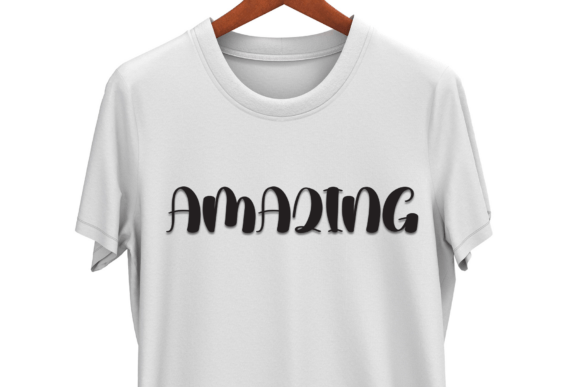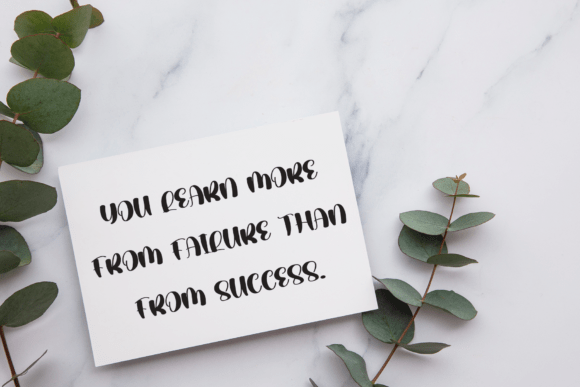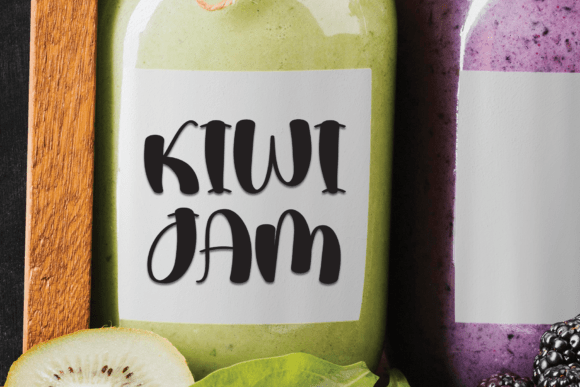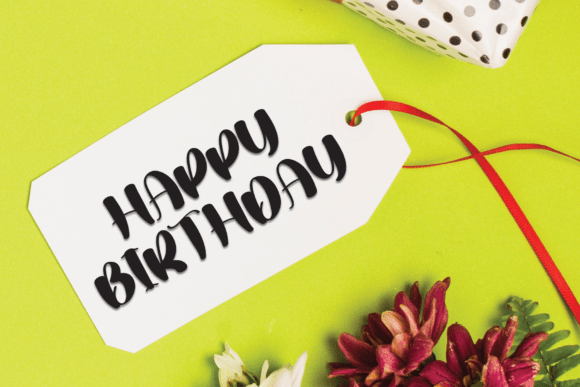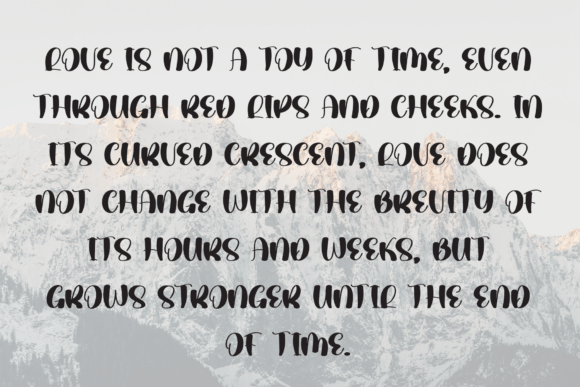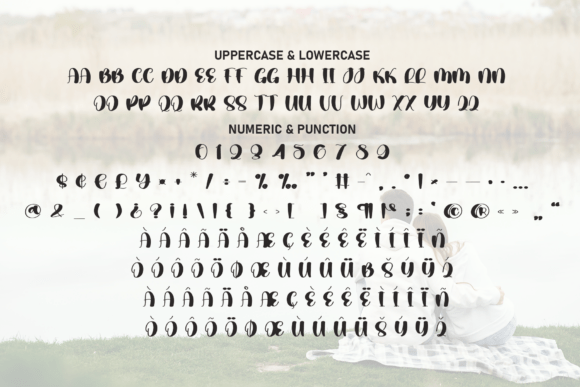
Introduction to Romantic Outdoor Font
Introducing an endearing handwritten display font – a perfect blend of sweet breath and friendly form.
This delightful typeface brings a charming, fun element to your design toolkit It’s a great fit for wedding invitations, greeting cards, or any other creative projects that call for a hint of playful whimsiness.
Key Features of Romantic Outdoor Font